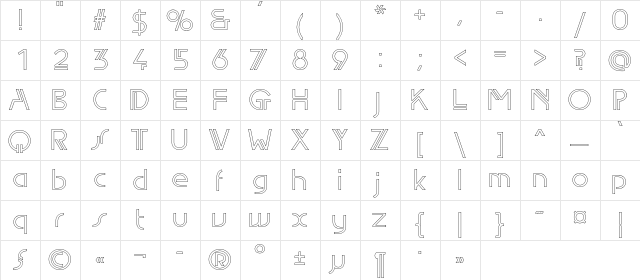
EdgeLineOutlineC Regular
Design Context for EdgeLineOutlineC Typeface
EdgeLineOutlineC brings ornamental detail and strong personality to headlines and identities, where visual impact matters more than quiet functionality.
Font Pairing: Pair with a clean neutral sans-serif for body copy to let EdgeLineOutlineC's character lead without overwhelming the composition.
Pro Tip: Treat EdgeLineOutlineC as the centrepiece of your typographic hierarchy. One strong heading set in a decorative face can carry an entire layout.